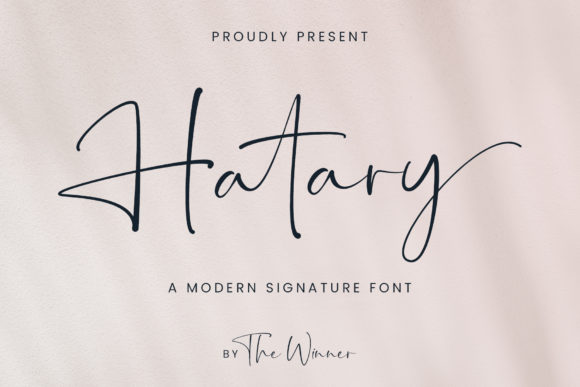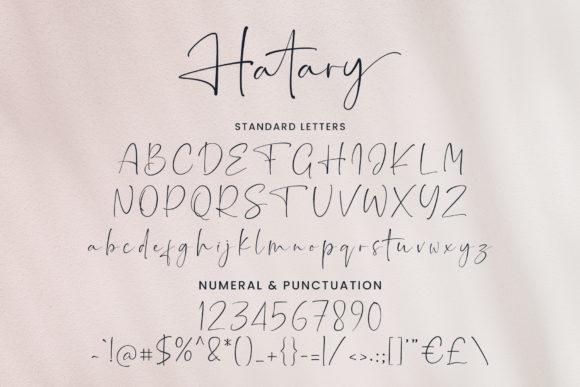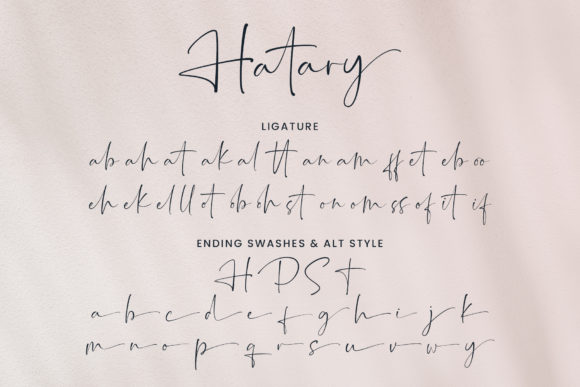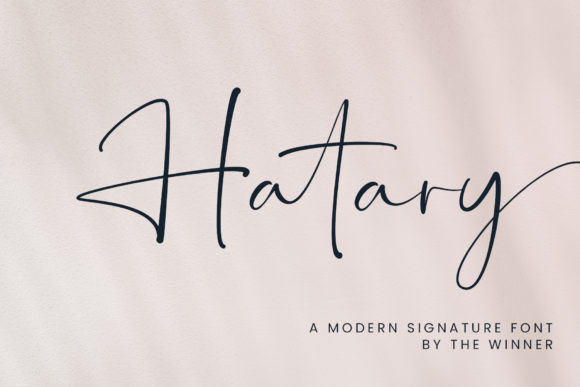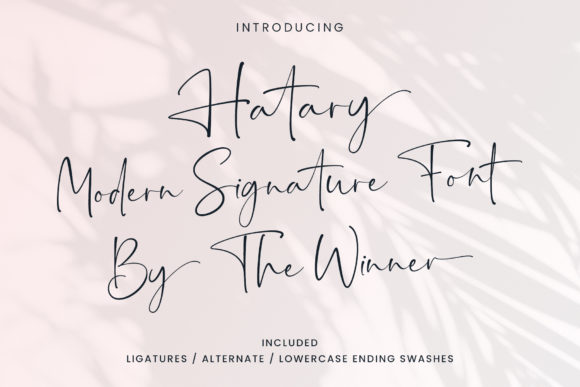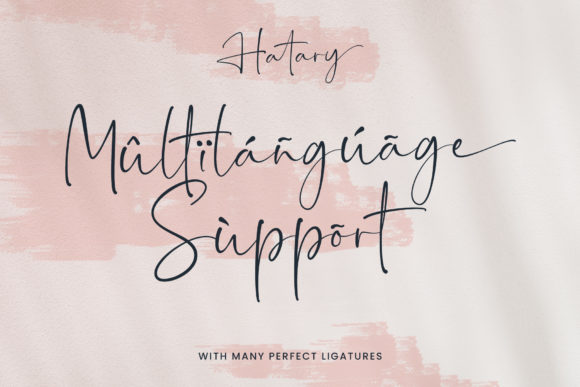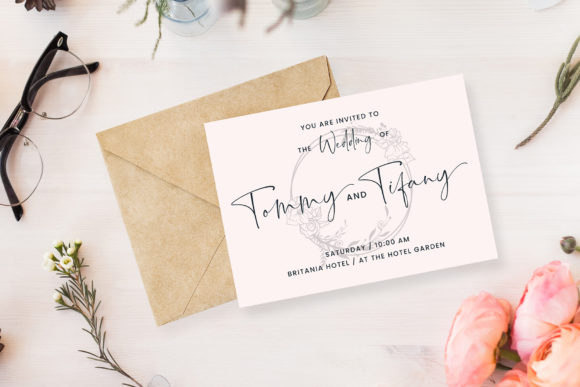
About Hatary Font
Hatary is a gorgeous script font suitable for logos, branding, invitations, posters, apparel, layout design, taglines, and many more. Add it to any of your creative projects, and it will make them come alive!